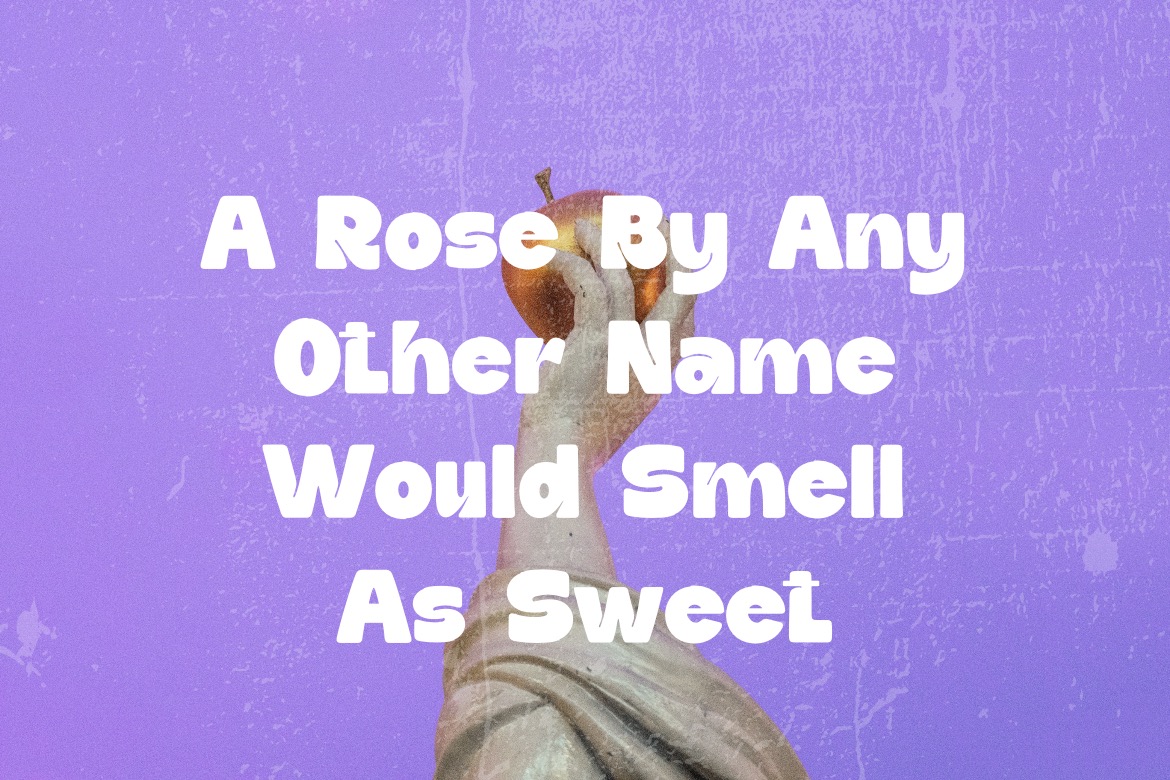
Daffiys is built with cleanliness and usability in mind—bold, tidy letterforms that stay easy to read while keeping a distinctive, friendly personality. Designed by Dhabee, this sans serif typeface balances smooth curves and confident weight for layouts that need clarity without feeling plain.
At first glance, Daffiys feels modern and clean: rounded shapes, generous counters, and a steady rhythm that keeps words looking organized even at large sizes. Subtle cut details add character, but the structure remains simple and consistent, so the type stays crisp and dependable.
Reading comfort comes from its sturdy proportions and clear separation between characters, making headlines, labels, and short copy feel effortless on the eyes. The overall look is professional yet approachable—ideal for branding that wants to appear polished, warm, and contemporary. For digital work, the strong silhouette performs well on screens, and the set includes solid essentials (uppercase, lowercase, numerals, punctuation), helpful standard ligatures, and extended Latin characters for multilingual use.
Daffiys is an ideal choice for modern branding, packaging, posters, social media graphics, thumbnails, and logo-style wordmarks—anywhere you want a clean sans serif with a soft, playful edge. License: Free for Personal Use.